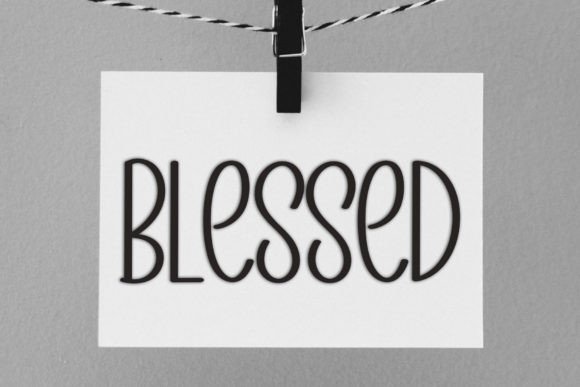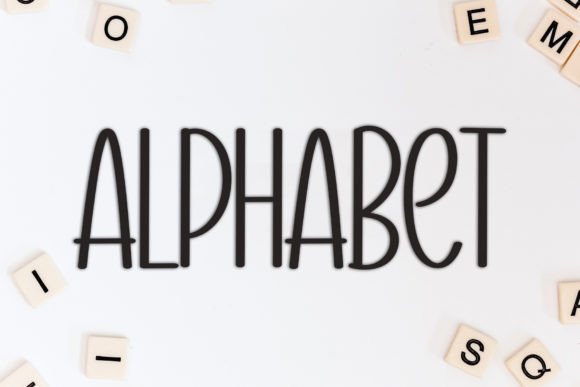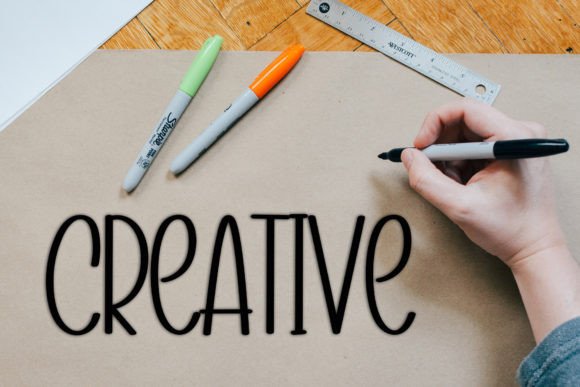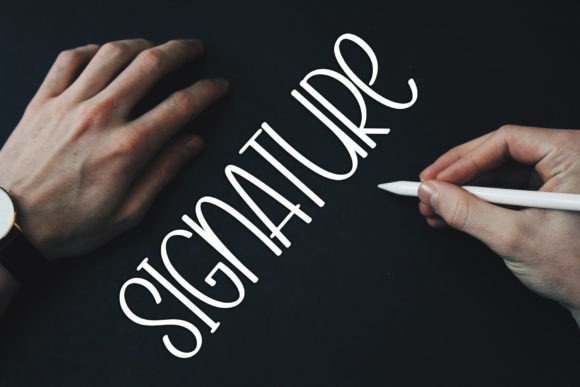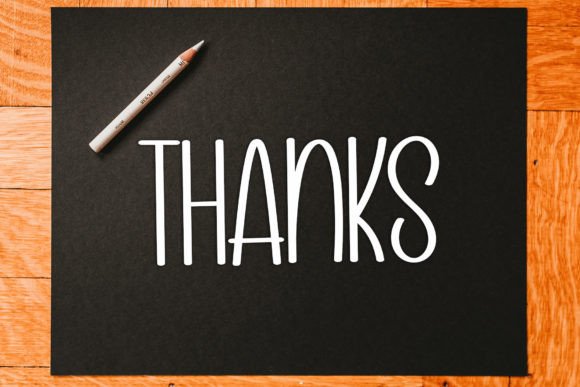
Unlock the Beauty of Your Projects with Delight Font
Have you ever found yourself scribbling down ideas in a coffee shop, surrounded by the hum of creativity? Maybe you’re sketching out a concept for a new project, and the words just seem to flow effortlessly onto the page. That’s the magic of creating – and it’s exactly what Delight Font is designed to capture.
Delight Font is a stunning handwritten font that combines the elegance of classic calligraphy with a modern twist. Its balanced and varied design is perfect for adding a touch of sophistication to your projects, whether you’re a graphic designer, writer, or artist. With Delight Font, you can elevate your work and make it truly unforgettable.
As a valuable tool for designers, Delight Font offers endless possibilities for creativity and self-expression. Its timeless charm will add a personal touch to your projects, making them truly special and unique. So why settle for ordinary when you can have Delight Font to bring your vision to life?
Delight Font Key Features
- Font Family: Delight Font is a sans-serif font family with 10 styles, including regular, italic, bold, and bold italic.
- Character Set: Supports a wide range of languages, including Latin, Cyrillic, Greek, and more, with over 800 glyphs.
- Unique Characteristics: Delight Font features a clean and modern design with a subtle rounded edge, making it perfect for digital and print media.
Delight Font Review
Delight Font is a beautiful script font that shines ✨ when it comes to adding a touch of elegance to your designs. The font’s smooth lines, rounded edges, and organic feel make it perfect for creating eye-catching headers, titles, and other display typography.
- ✨ Excellent for creating beautiful headers and titles: The Delight Font is ideal for adding a touch of sophistication to your designs, making it perfect for use in wedding invitations, branding, and other high-end projects.
- ✨ Stylish and elegant: The Delight Font’s unique style and feel make it perfect for adding a touch of luxury to your designs.
However, there are some limitations to consider ⚠️:
- ⚠️ Limited font styles: The Delight Font is only available in a single style, which may limit its versatility for certain design projects.
- ⚠️ May not be suitable for small text: Due to the font’s elegant and ornate style, it may not be suitable for use in small text sizes, where the details may get lost.
Overall, the Delight Font is a beautiful and elegant script font that shines in the right contexts. While it has some limitations, it’s a great addition to any designer’s toolkit for adding a touch of luxury and sophistication to their designs.
Delight Font is ideal for creative projects such as invitations, posters, and social media graphics.
Use Delight Font in combination with bright colors and bold graphics to create eye-catching designs.
Experiment with different font sizes and styles to add emphasis and visual interest to your design.